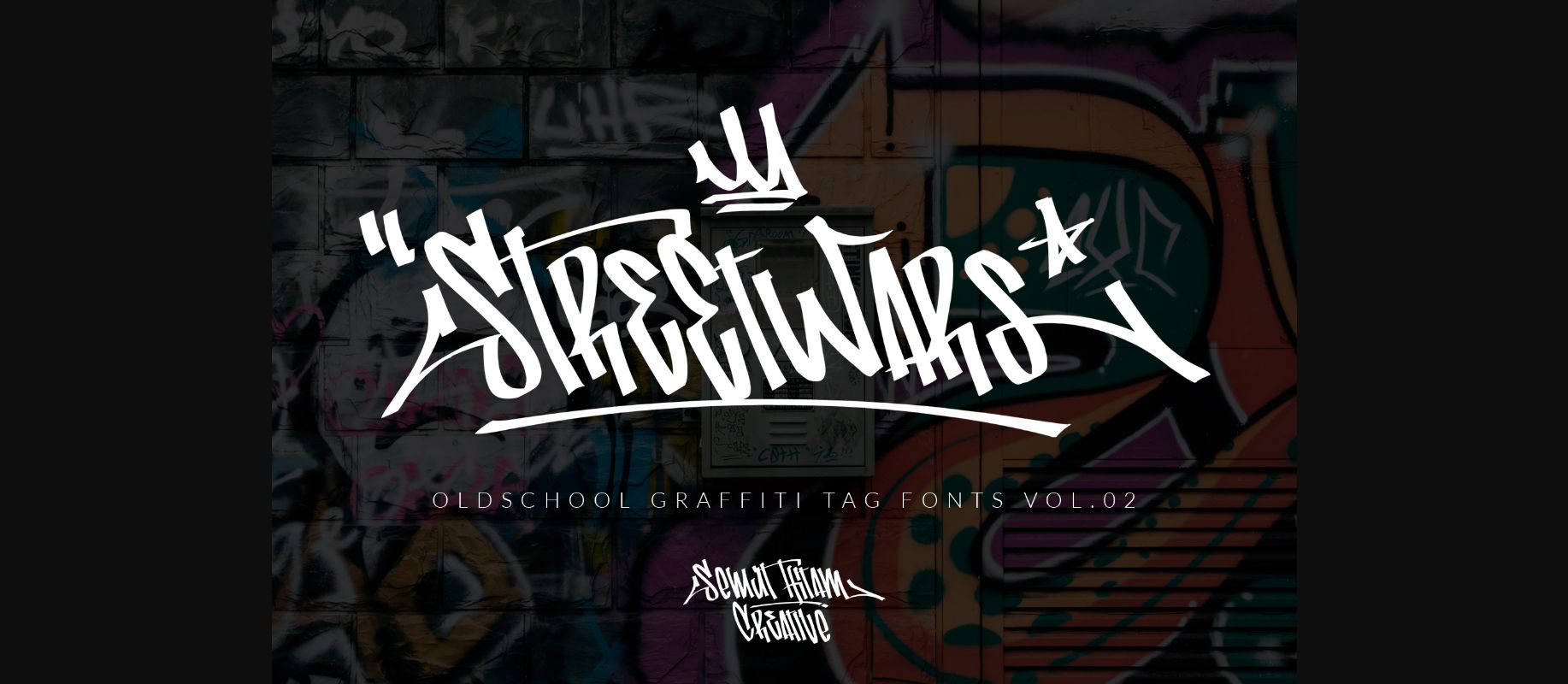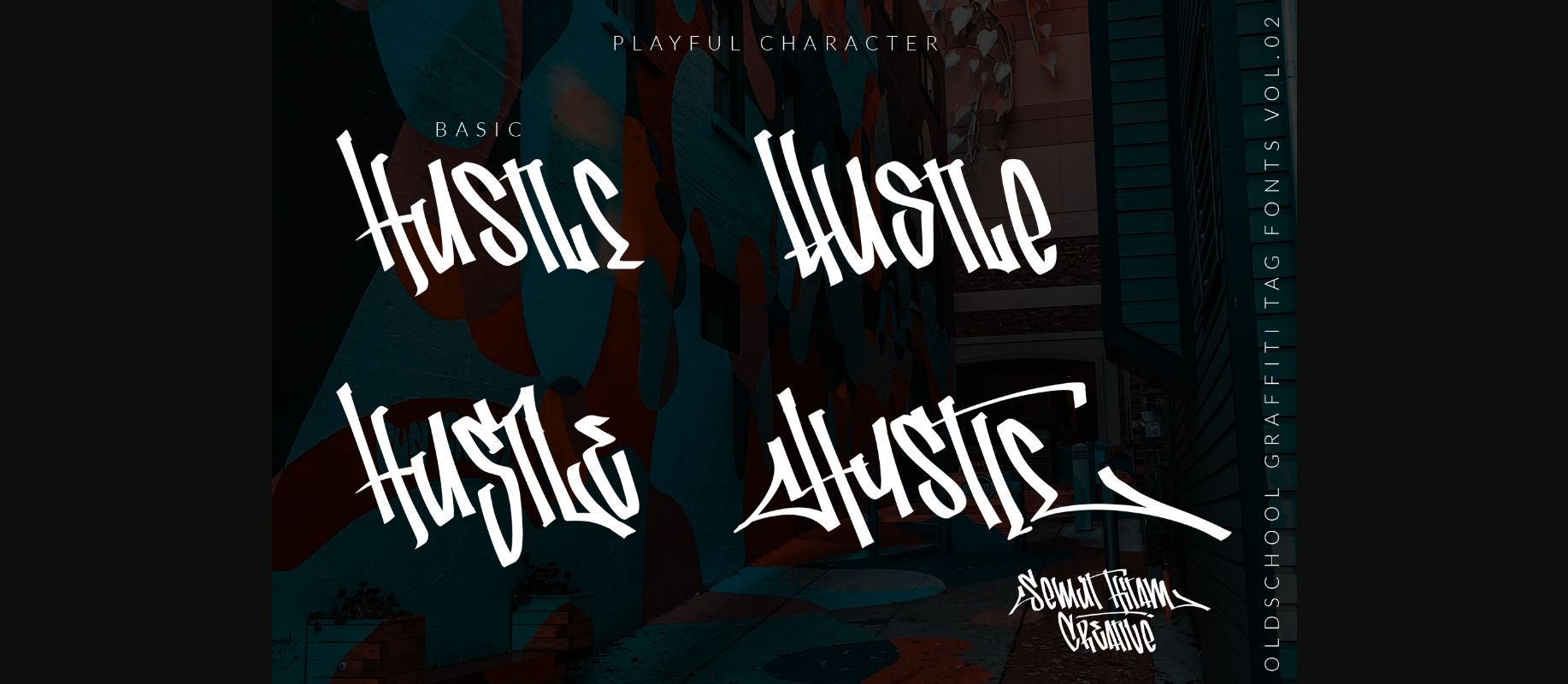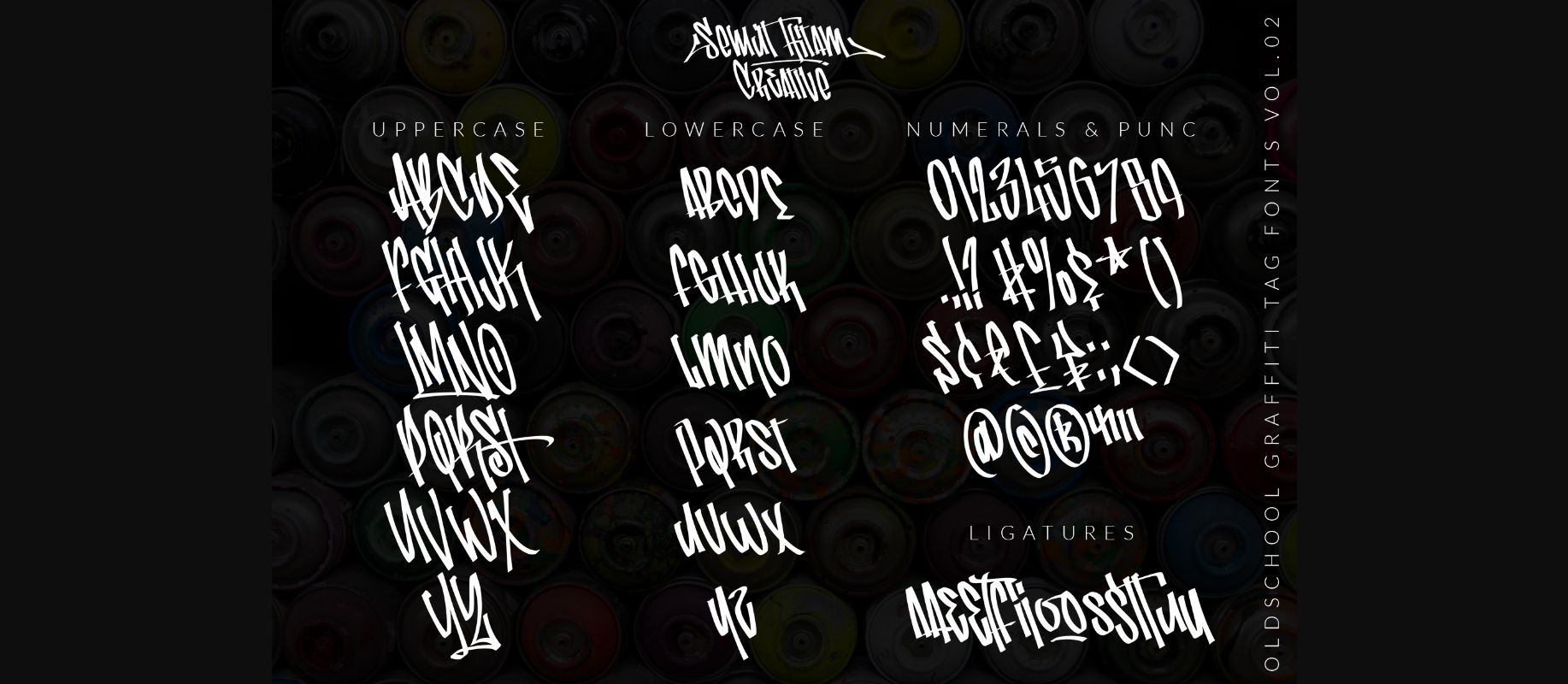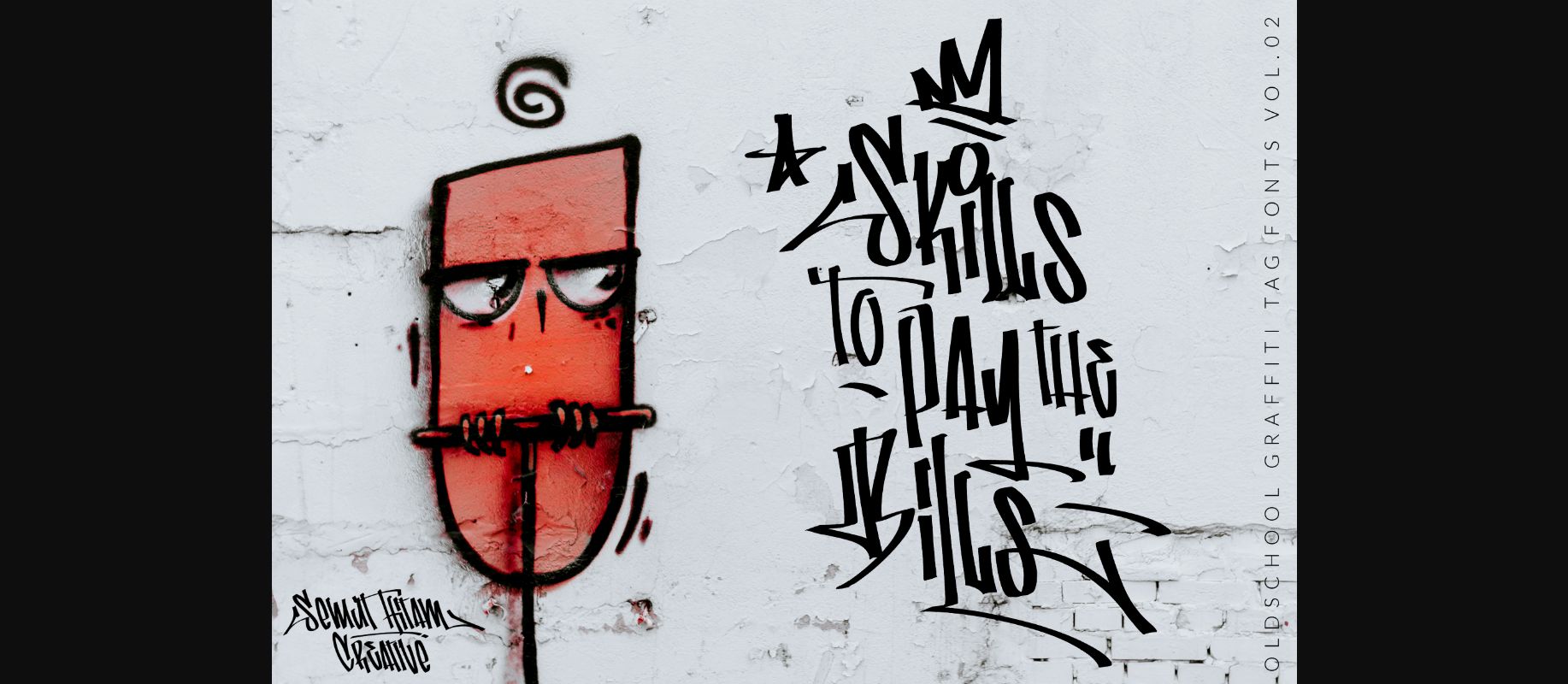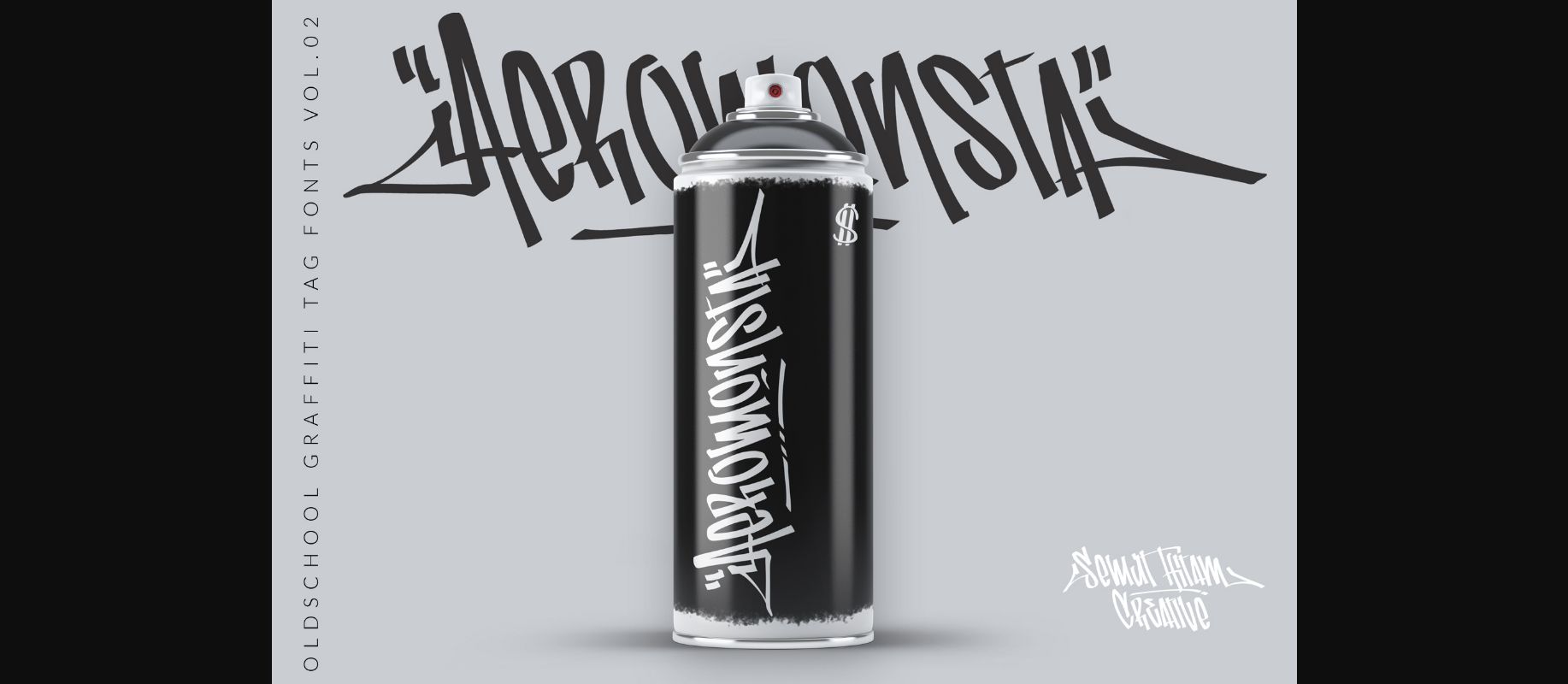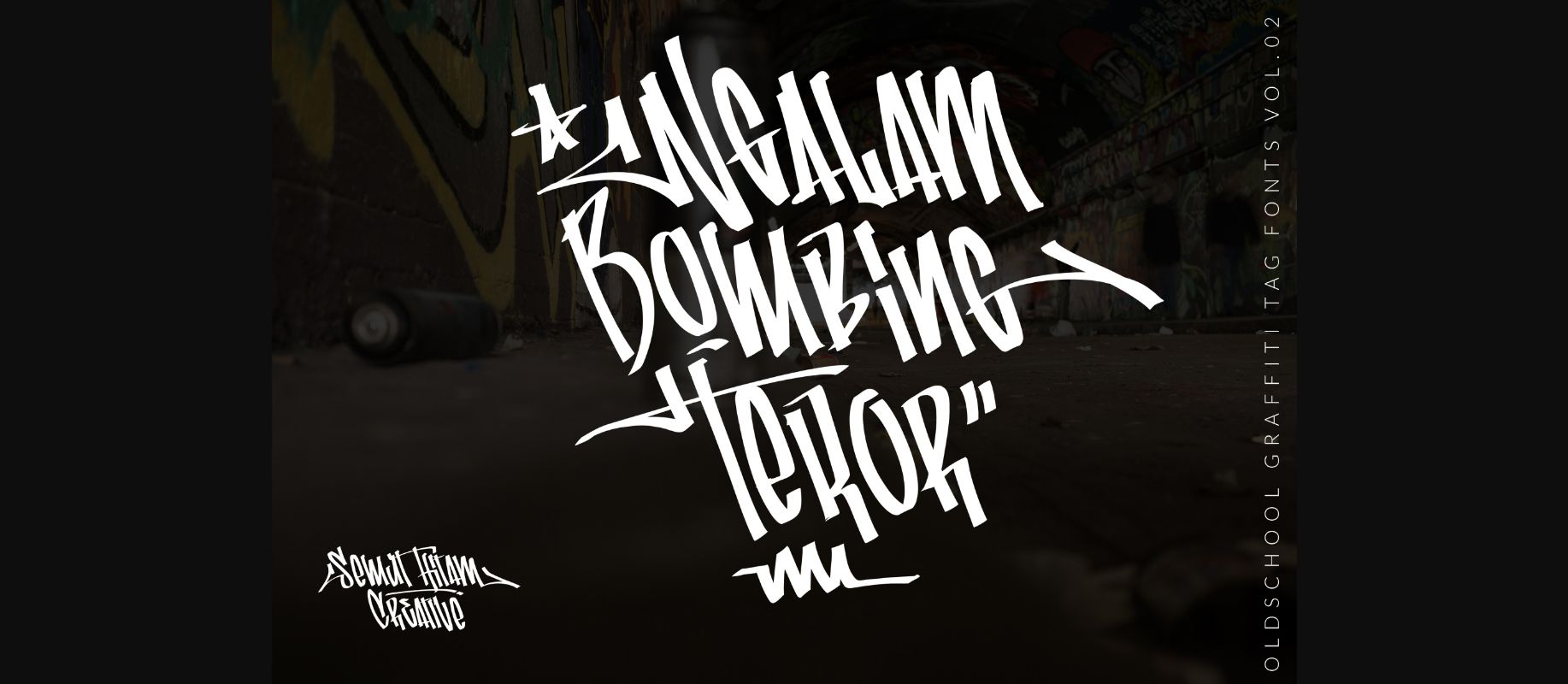
Street Wars Font
About Street Wars Font
Street Wars is a graffiti font. This amazing decorative font features funky characters that will add a great touch to any project that requires a personalized look!